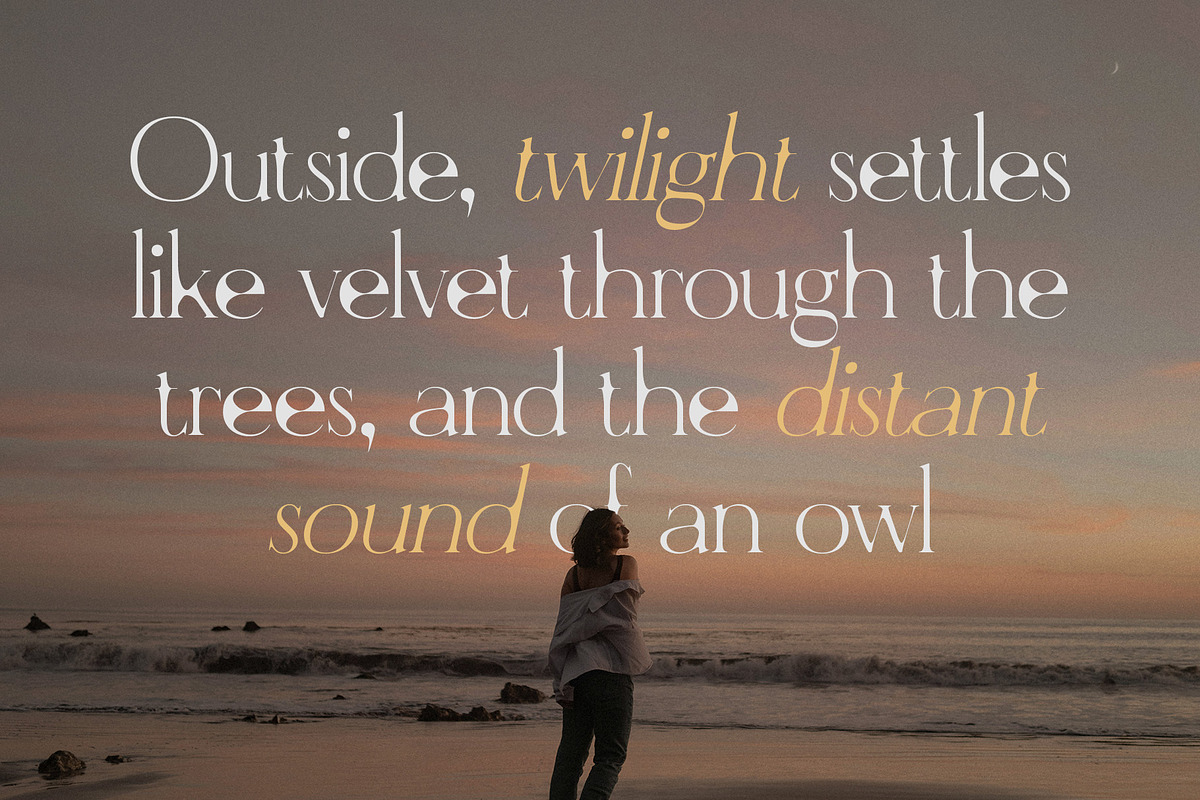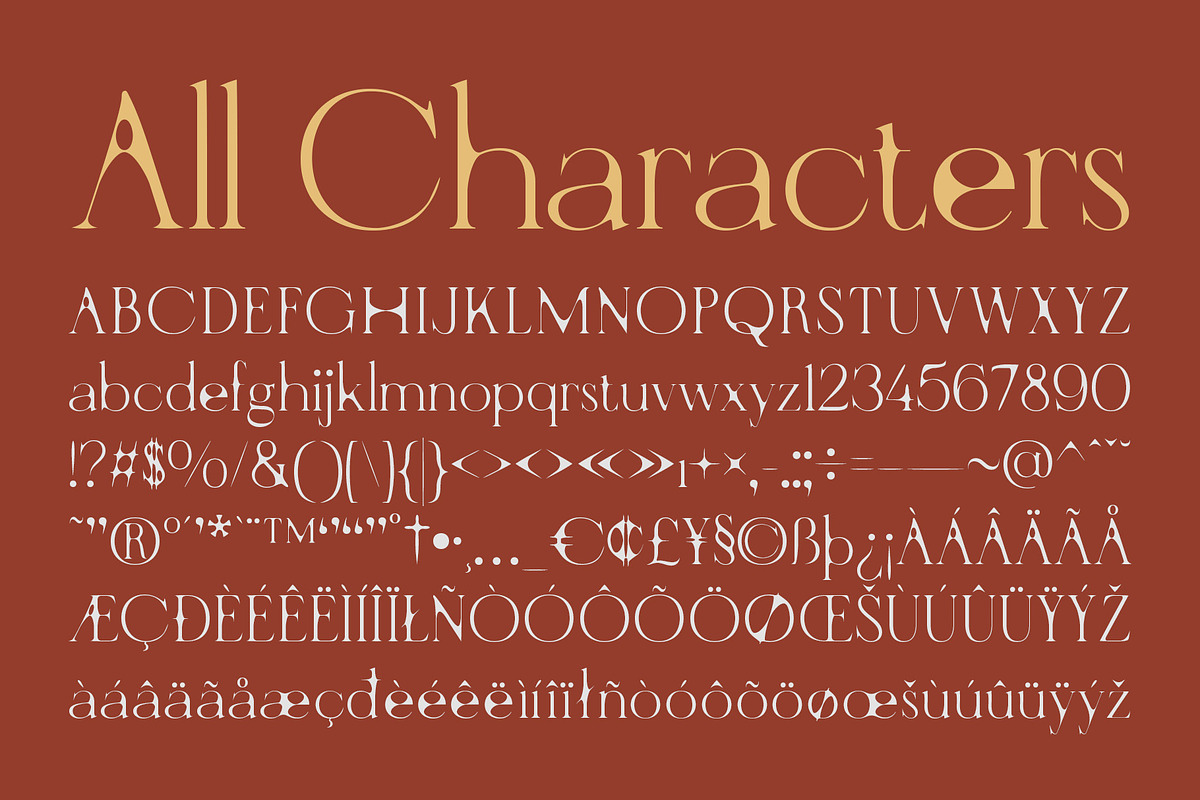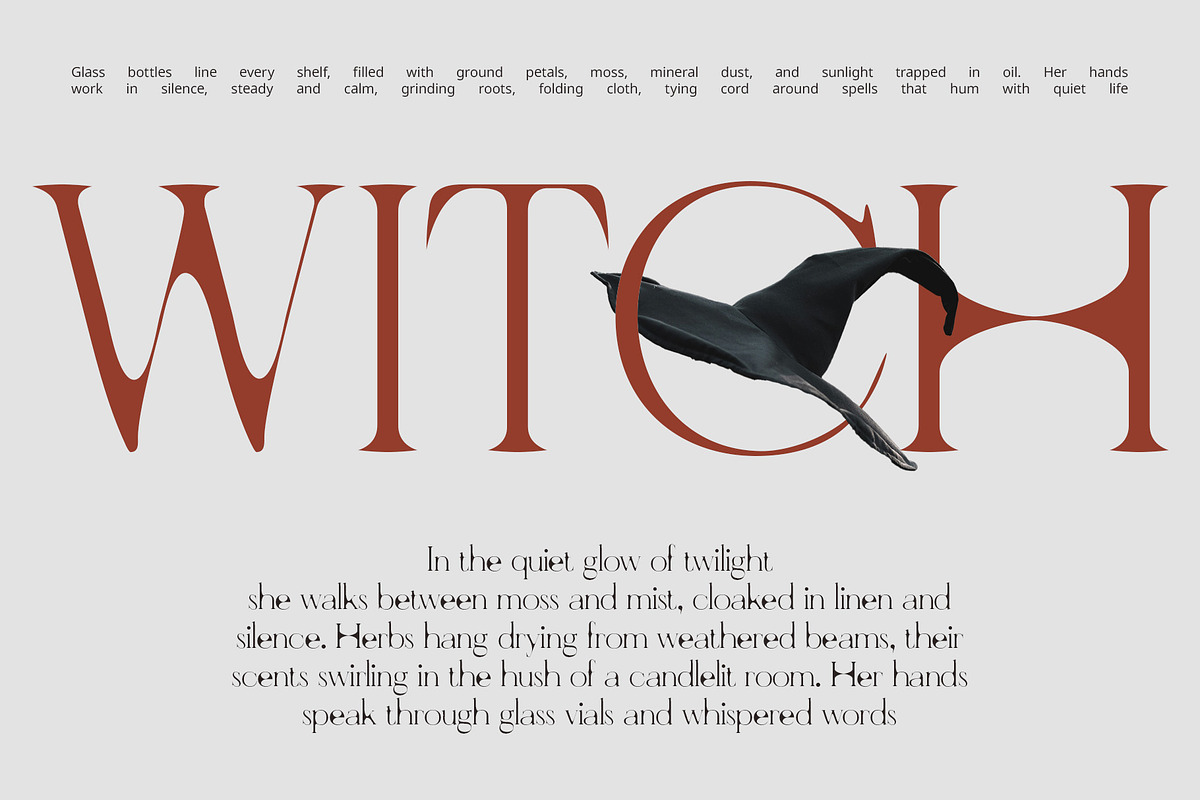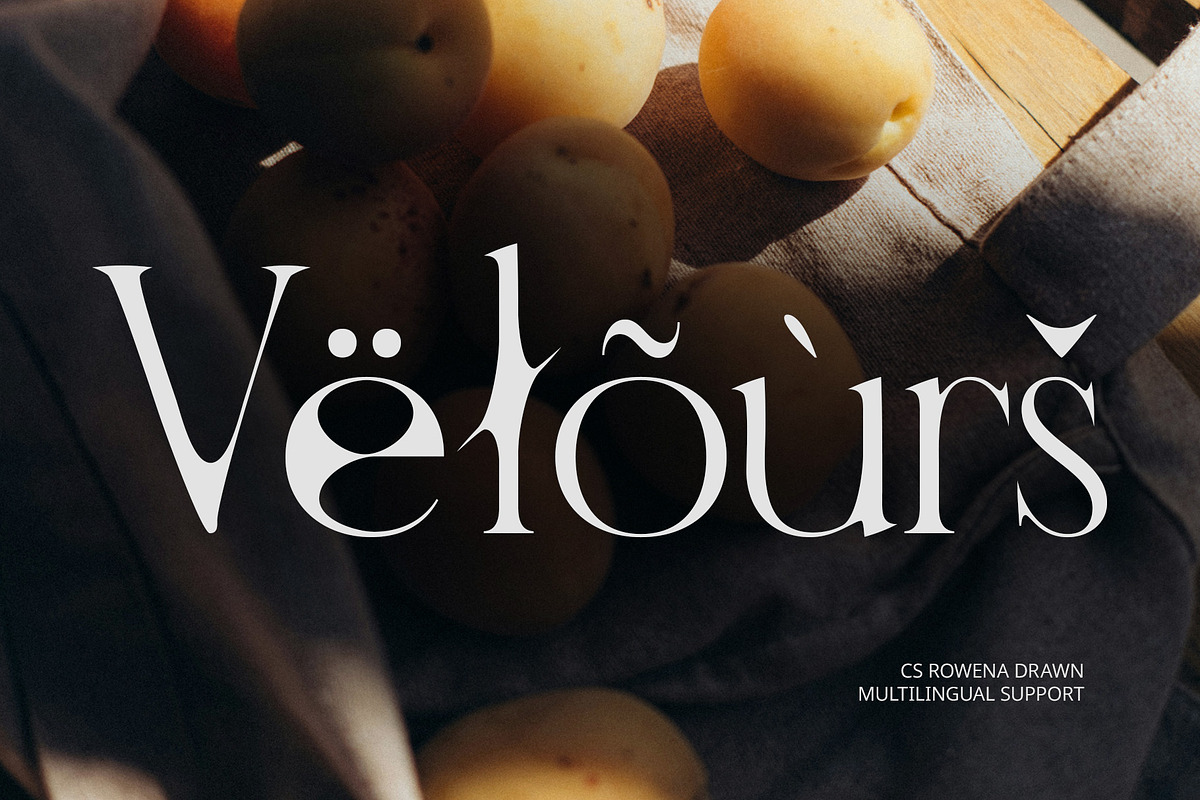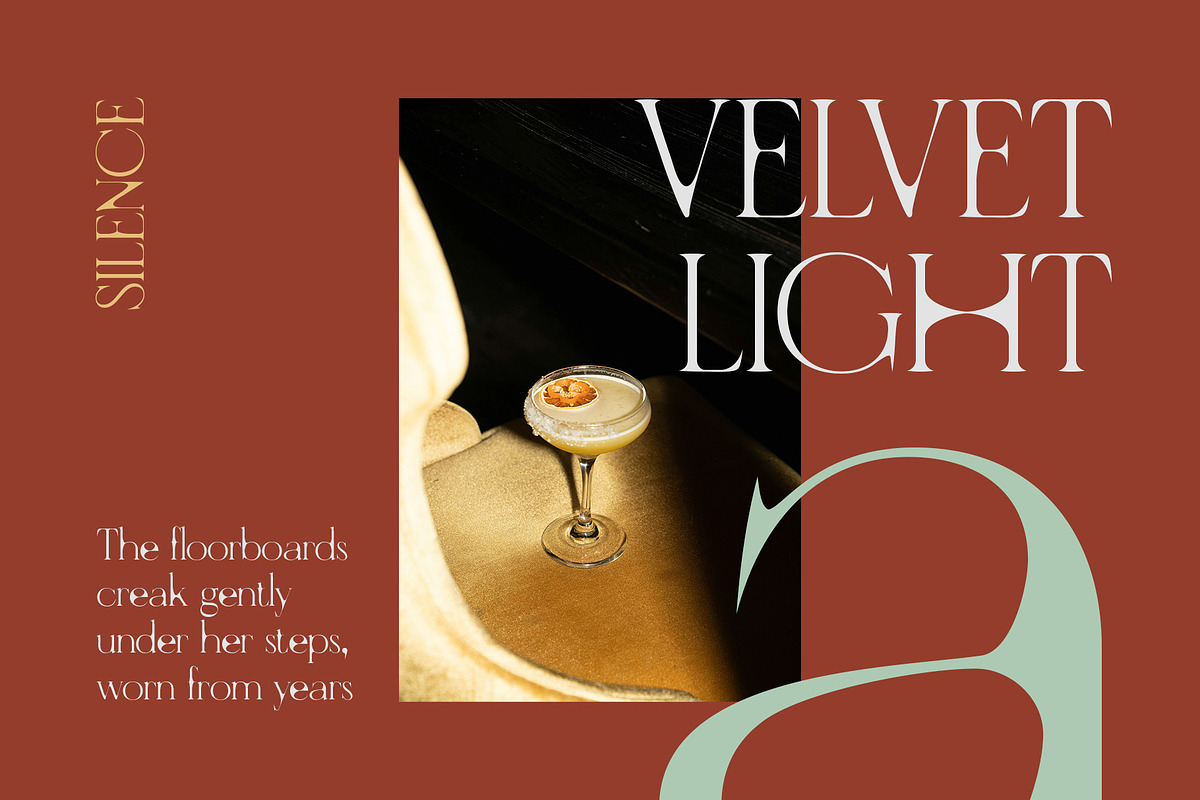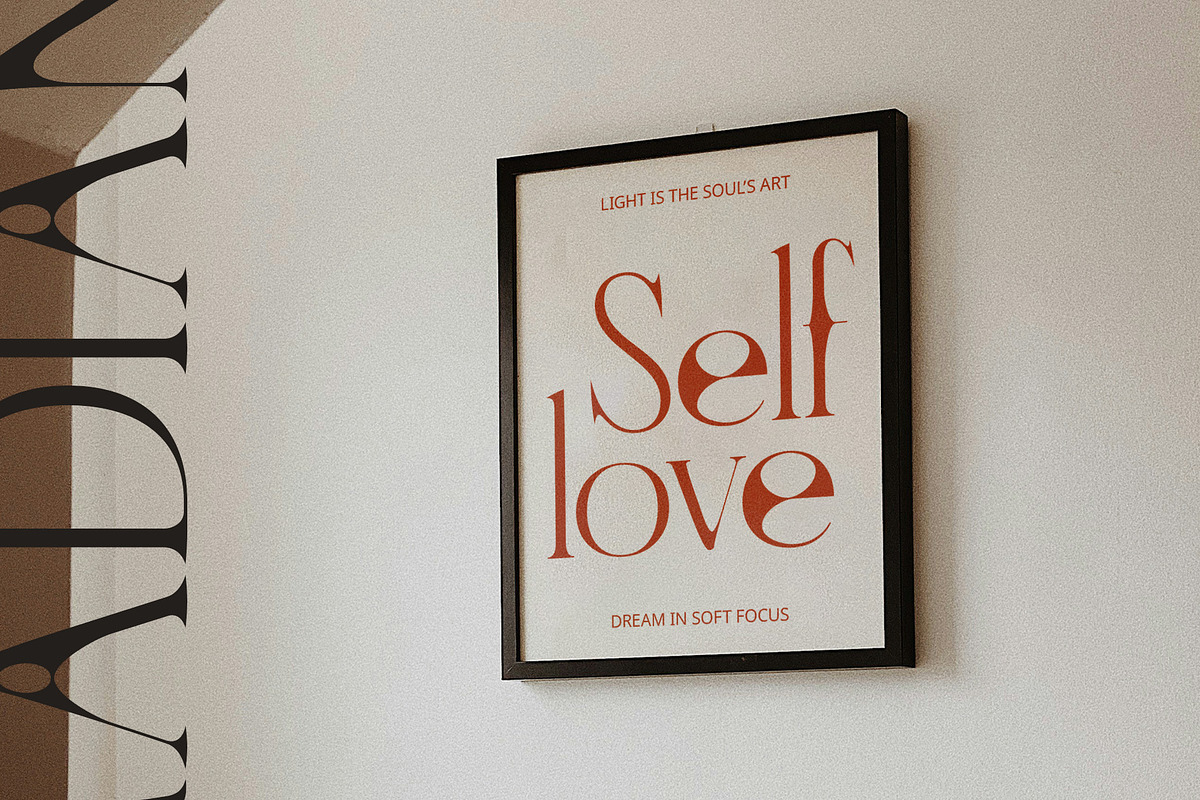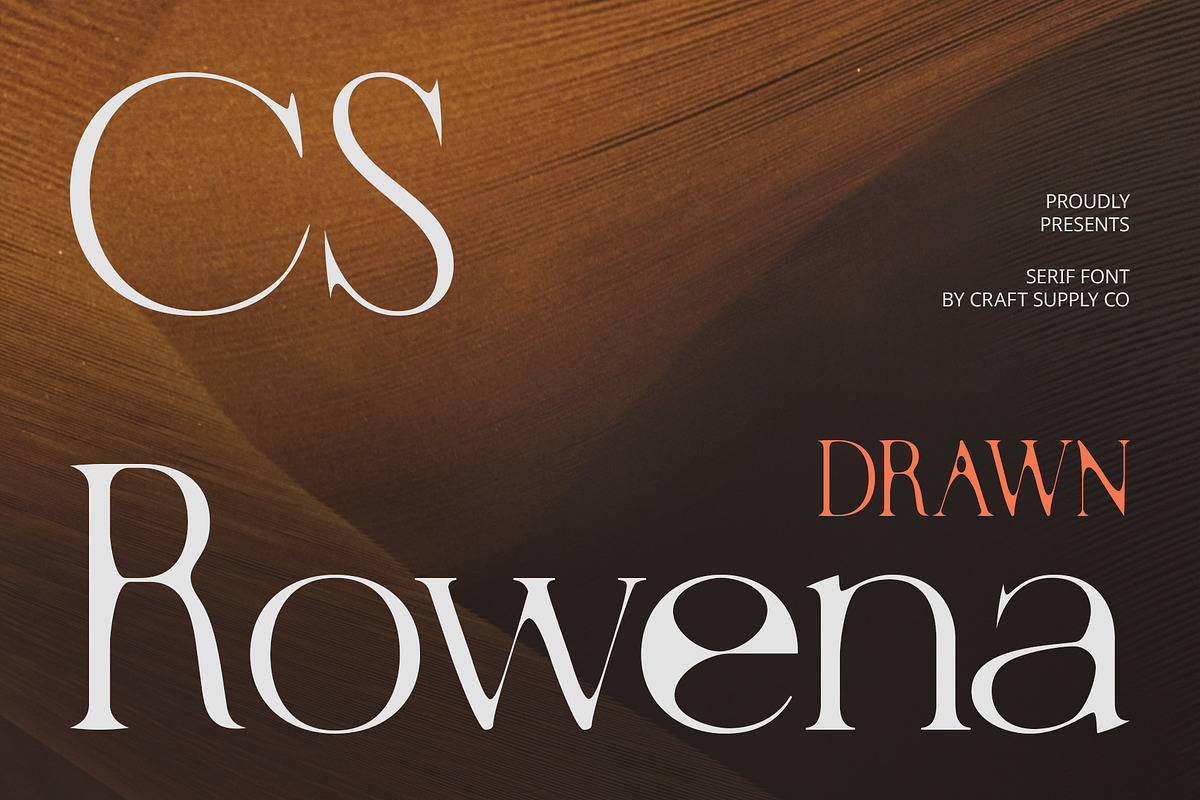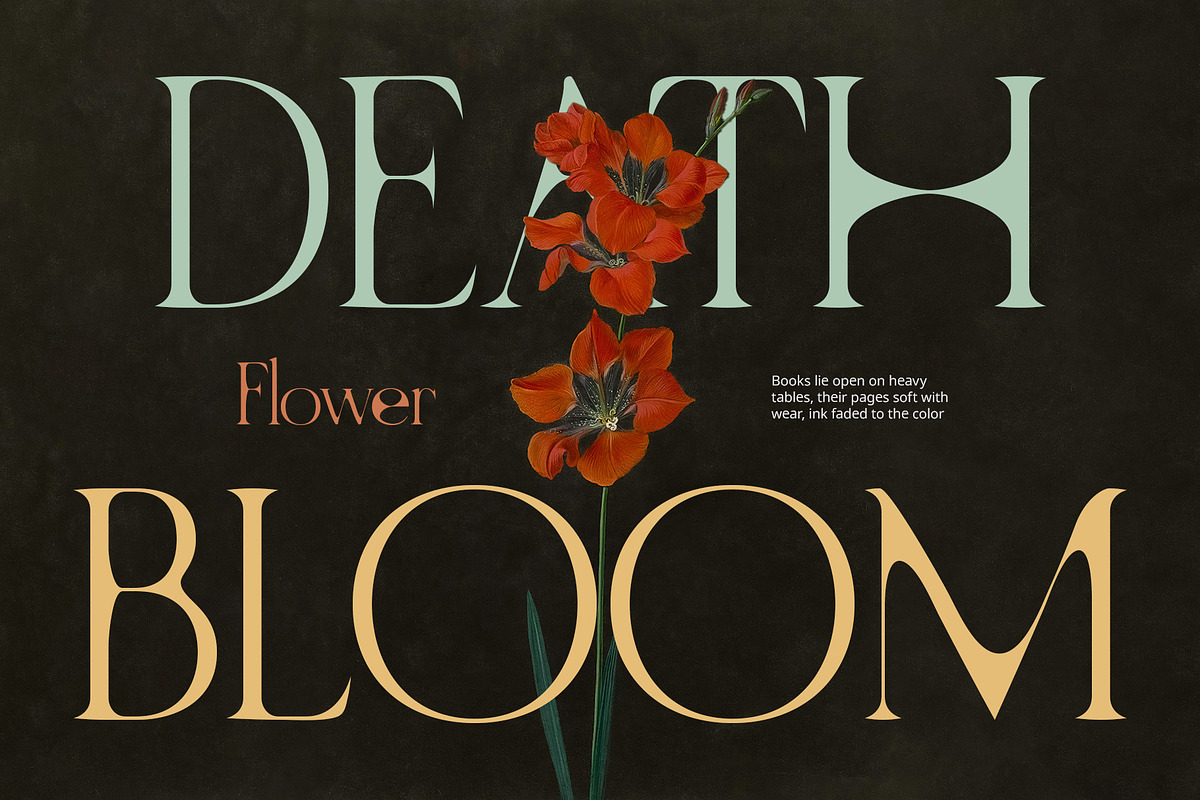
CS Rowena Drawn
CS Rowena Drawn – Elegance Refined by Hand
Contemporary Elegance with Serif Precision This is a modern serif font defined by its clean, sleek, and contemporary letterforms, making it an excellent choice for high-end and editorial design. Its refined serifs and measured structure offer a sense of sophistication and confidence, ensuring clarity and elegance in every word.
Handcrafted Texture for Artistic Nuance The font’s drawn effect introduces a subtle, handmade texture that brings warmth and personality. These organic imperfections create a soft contrast to the font’s otherwise polished geometry, giving your typography a more artistic and intimate feel.
Graceful Balance of Form and Expression With its balanced proportions and thoughtfully crafted letterforms, the font conveys a slightly organic feel and effortlessly combines professionalism with creative flair. This unique pairing delivers a distinctive presence that stands out while remaining tasteful and versatile.
Ideal for Sophisticated and Expressive Design This expressive font excels in luxury branding, modern packaging, creative portfolios, magazine layouts, and more. It appeals to designers seeking to blend classic serif elegance with modern warmth and handcrafted charm. Whether you’re aiming for a refined minimalist look or a rich, expressive aesthetic, this font offers the perfect typographic foundation for visuals that are distinctive, graceful, and full of creative depth.